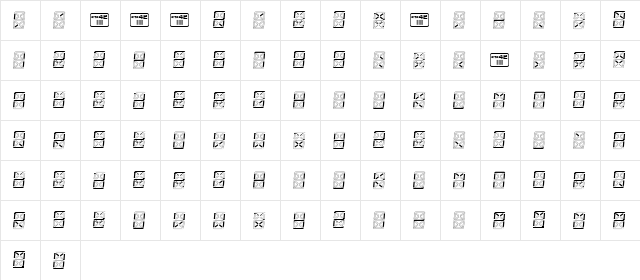
eDisplay Demo Italic
| Designer | area42 - Mediendesign |
Design Context for eDisplay Demo Typeface
eDisplay Demo brings ornamental detail and strong personality to headlines and identities, where visual impact matters more than quiet functionality. The dynamic lean of this cut emphasises speed and emphasis in any layout.